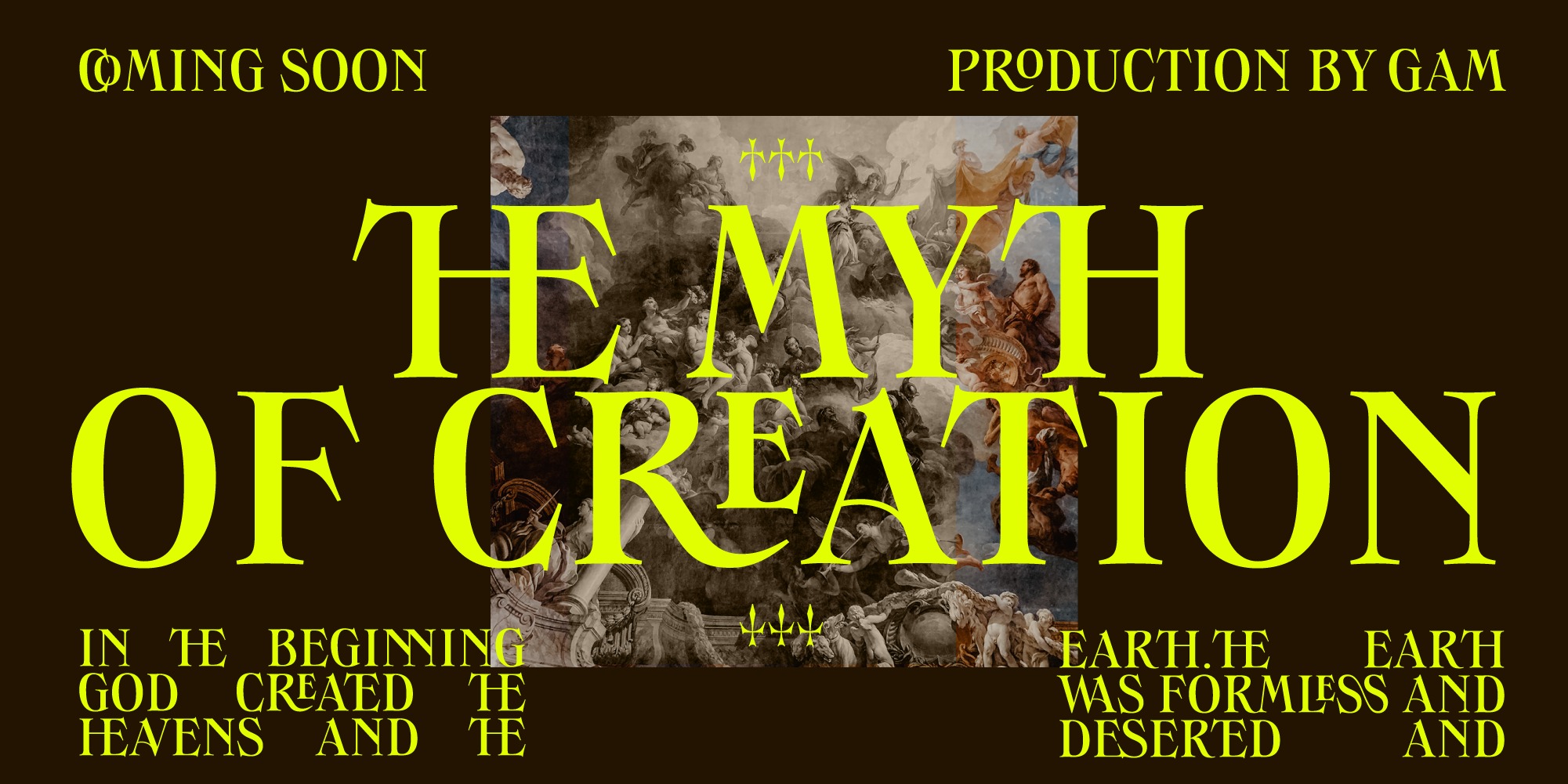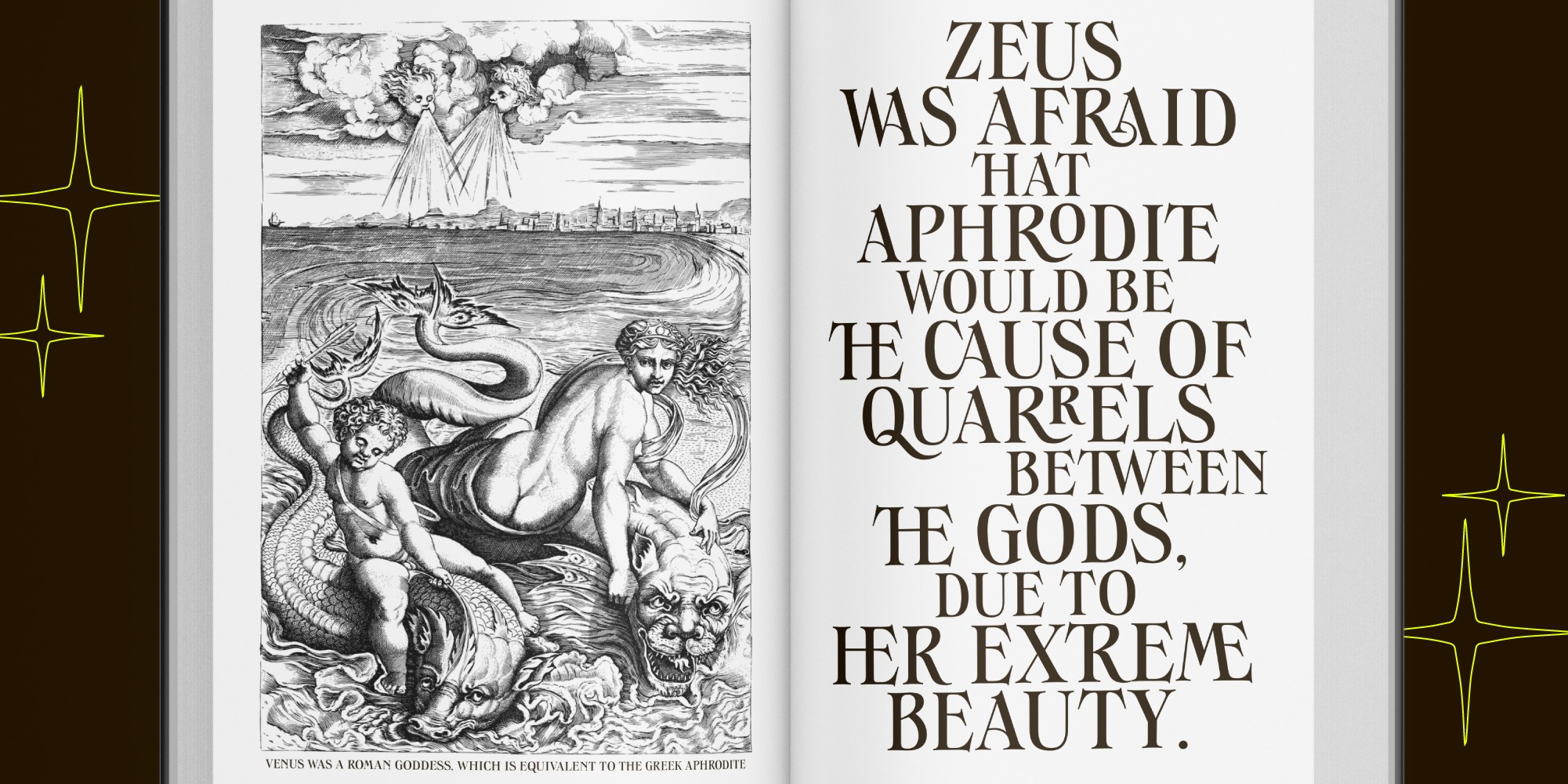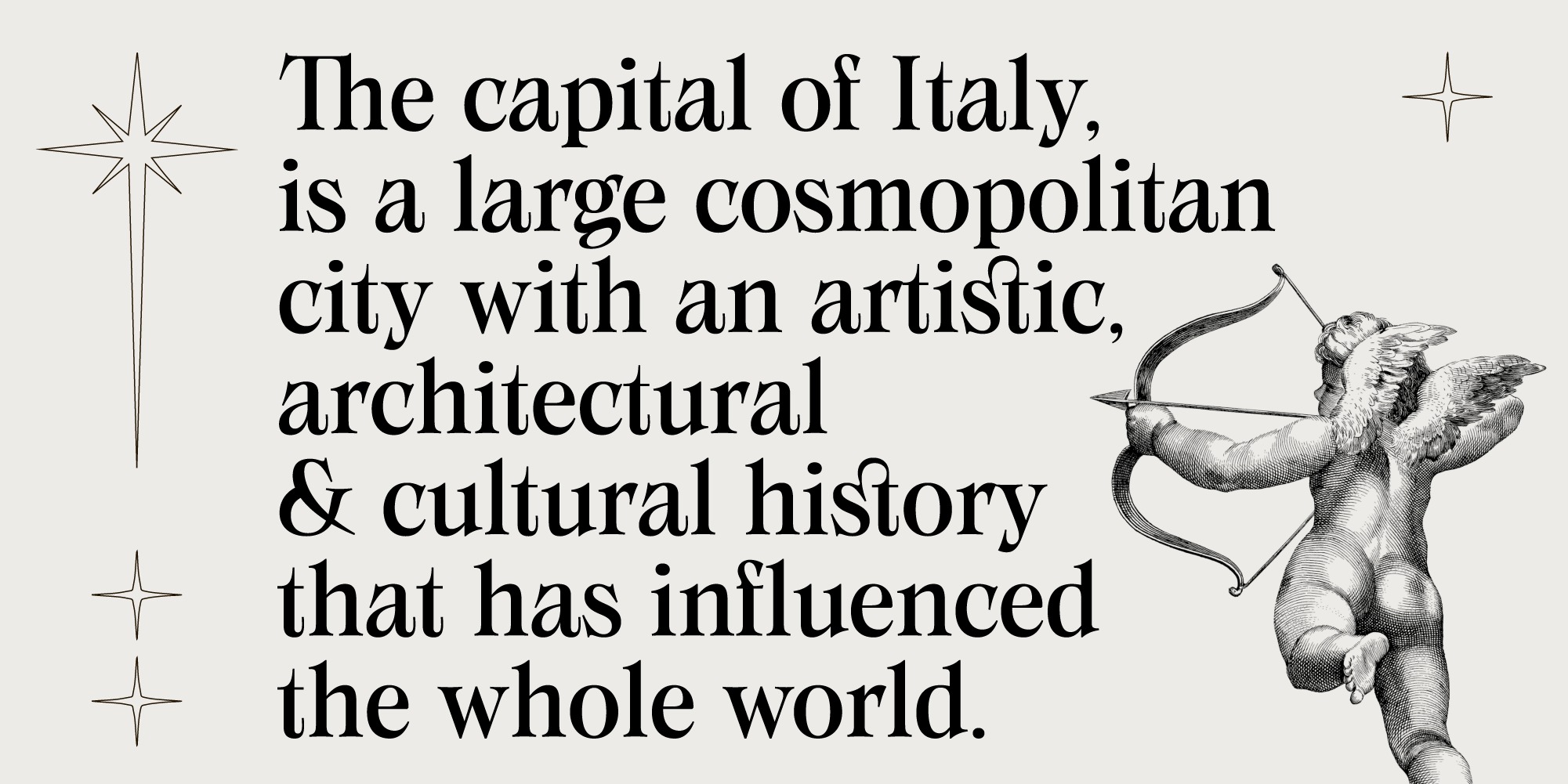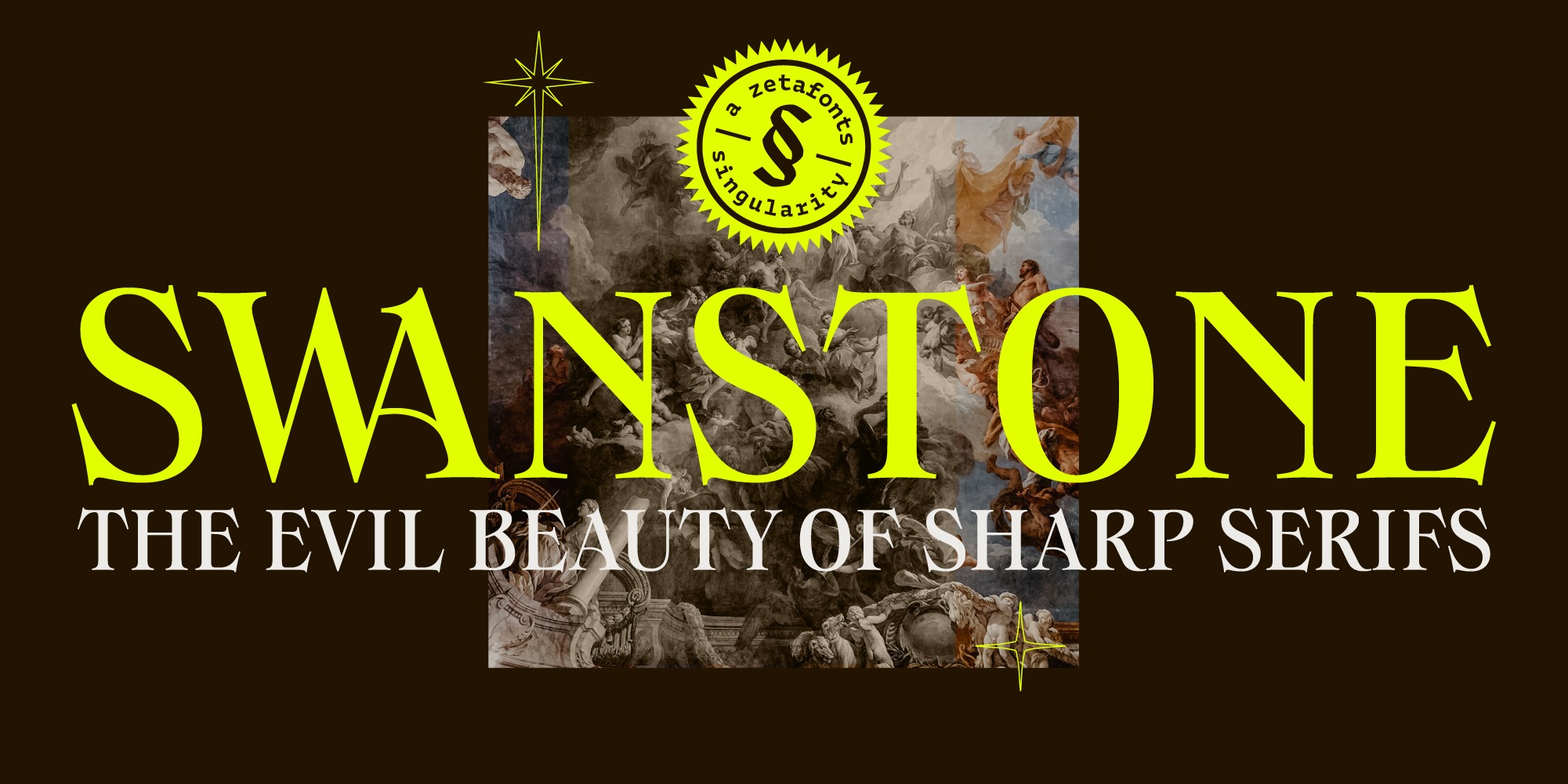
Swanstone Serif Font is a modern vintage serif typeface crafted & designed by Zetafonts. Swanstone comes with punctuations, numerals and ligatures for a more enjoyable and visually appealing design. This font is good for logo design, Social media, Movie Titles, Books Titles, short text even long text letters, and good for your secondary text font with sans or serif.